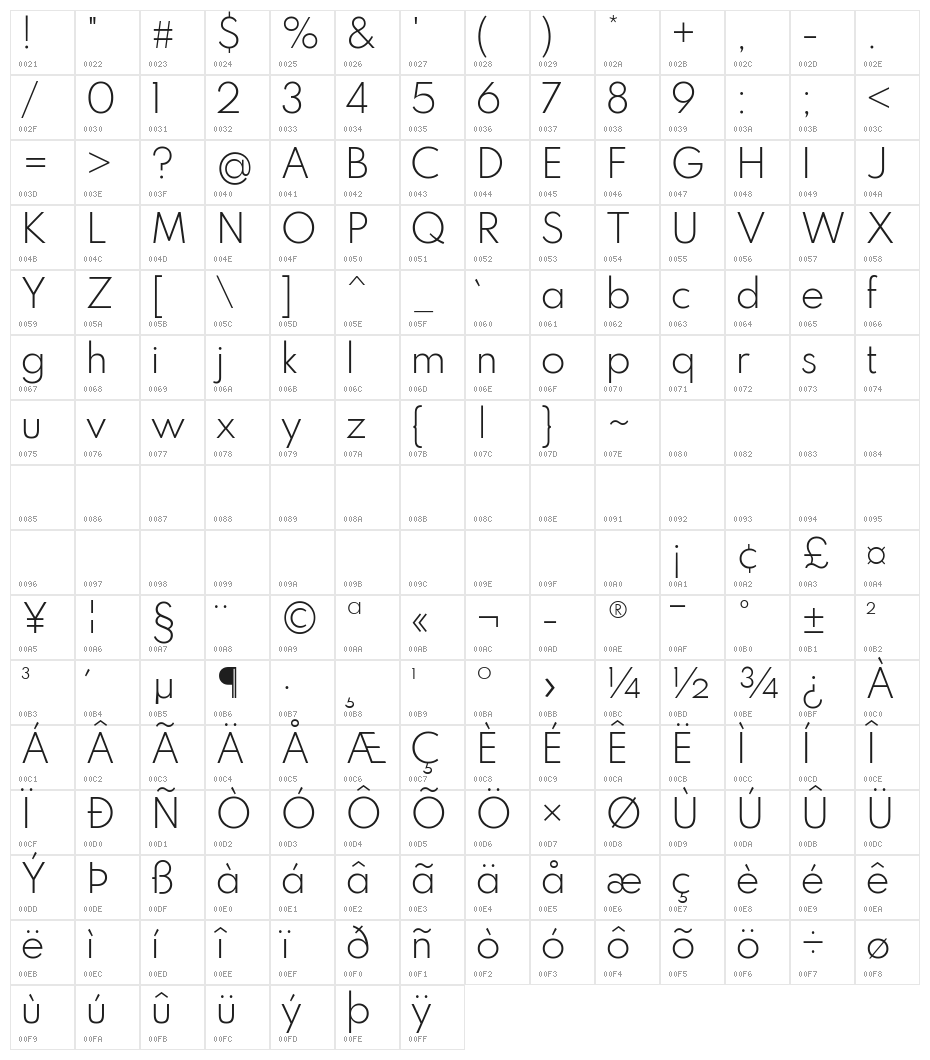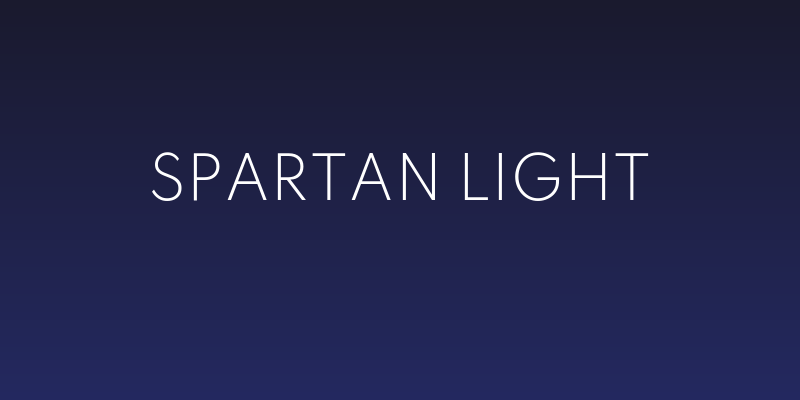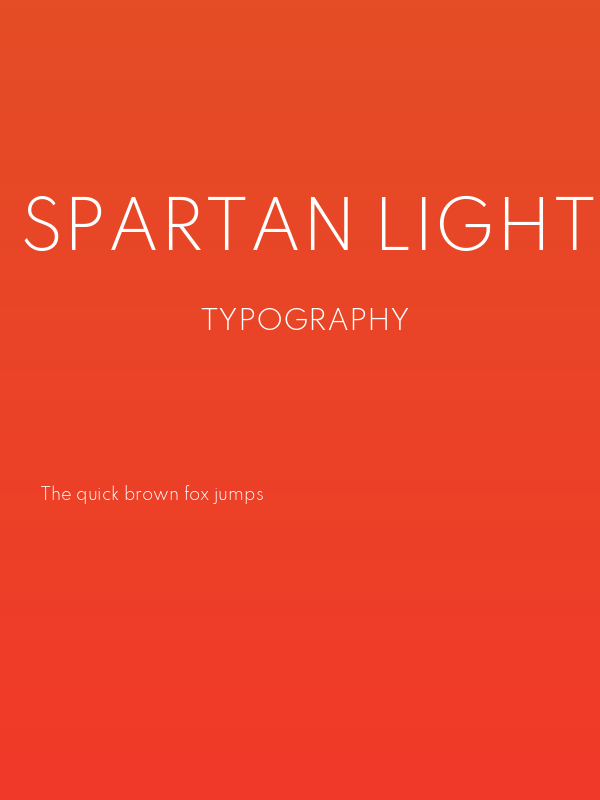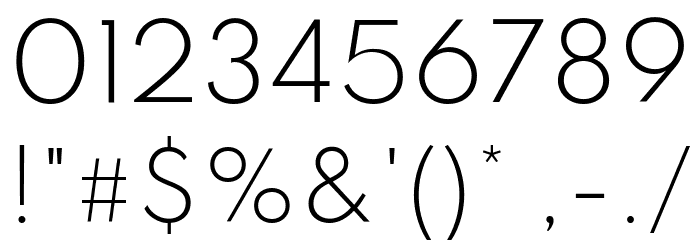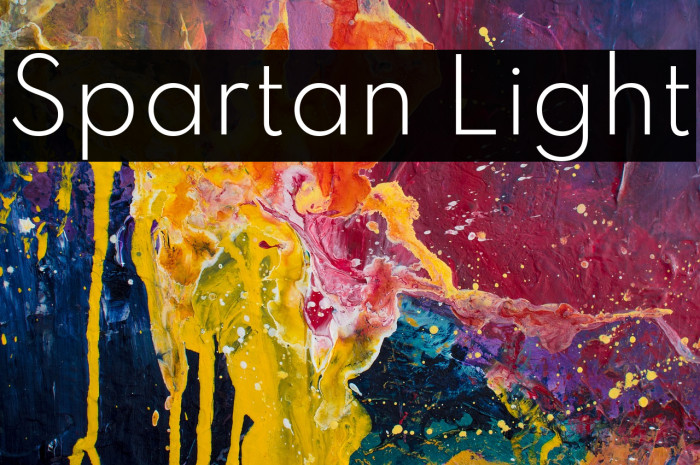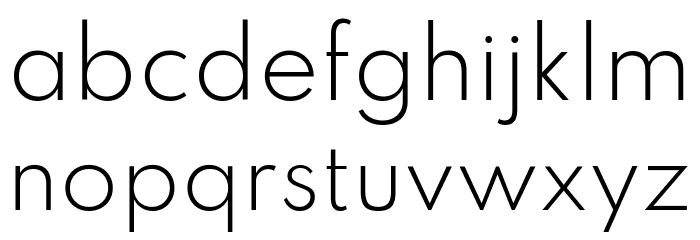
Spartan Light Font
Spartan Light Description
This typeface is a clean and modern sans-serif font characterized by its geometric shapes and minimalistic design. The letters are evenly spaced with a consistent stroke width, giving it a sleek and contemporary appearance. The uppercase and lowercase letters maintain a uniform height, contributing to its balanced and harmonious look. The numerals and special characters are designed with the same geometric precision, ensuring readability and versatility across various applications. This font's simplicity and clarity make it suitable for both digital and print media.
| Use Case | Headlines, Body text, Logos |
| Proposed Projects | Ideal for branding, web design, advertising, and editorial layouts due to its clarity and modern aesthetic. |